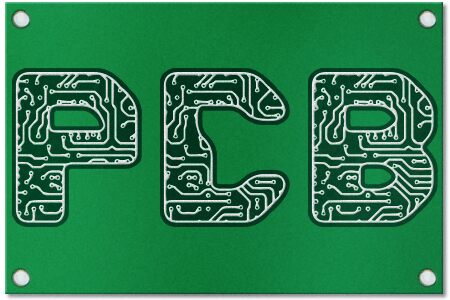
PCB by Anthony Robinson of ANFA is a free decorative techno display font based on circuit-board lettering. Broad, rounded capitals hold a dense network of tracks, solder points, and component-like details. The effect is intricate but unmistakably electronic.
Technology is its natural subject, making it apt for electronics packaging and science-event posters. Game interfaces and music merchandise can use the internal circuitry as imagery. For a hardware brand, the letters turn a product name into a printed-circuit emblem.